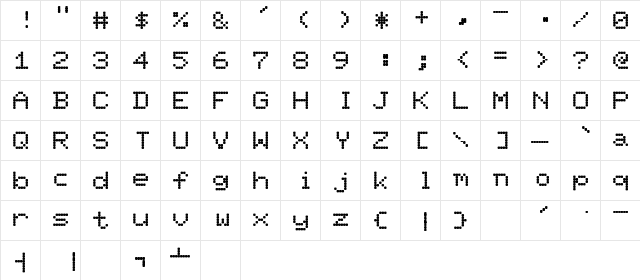
PALMER Regular
Design Context for PALMER Typeface
PALMER offers clean, dependable letterforms without strong stylistic allegiance, making it a practical choice for designers who need flexibility.